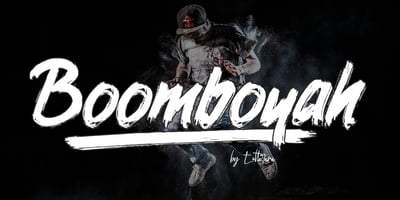
Boomboyah Font Family was designed by Thomas Aradea and published by Letterara. Boomboyah contains 1 styles and family package options. Boomboyah is a natural dry brush font. This font has a striking look and a good flow that can add a stylish touch to your designs. It’s perfect for logos, quotes, posters, for clothing, and every other design which needs a unique touch.